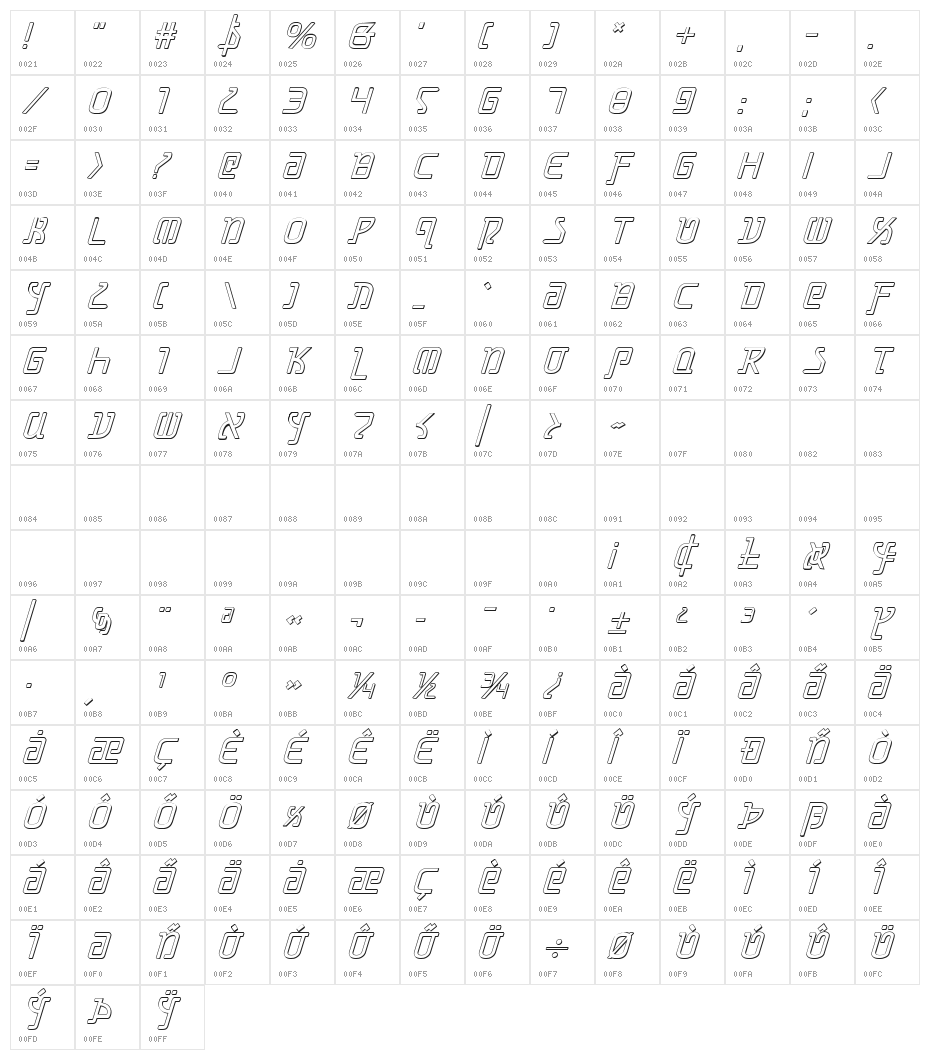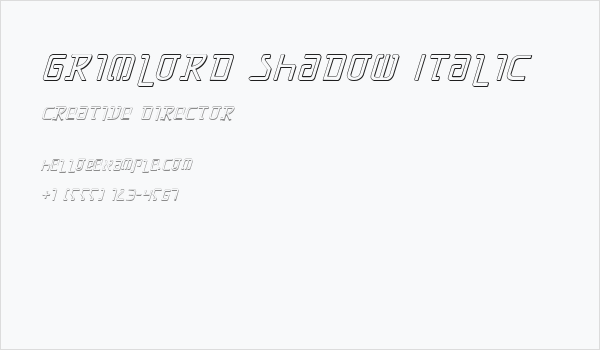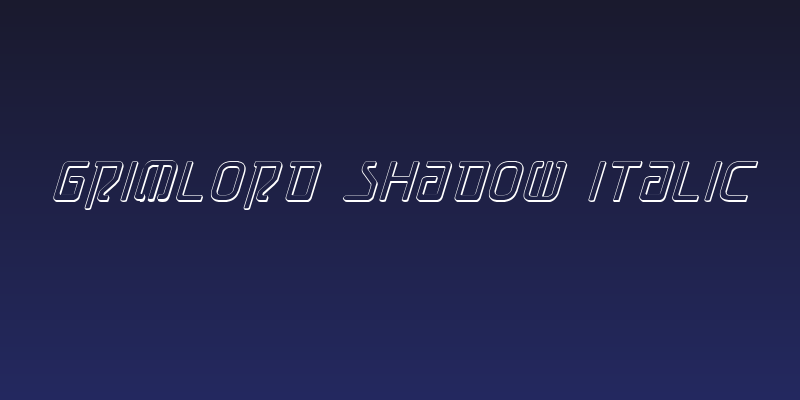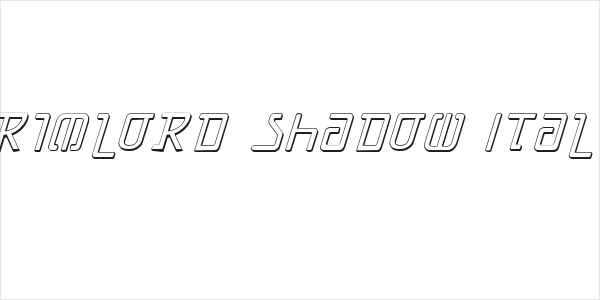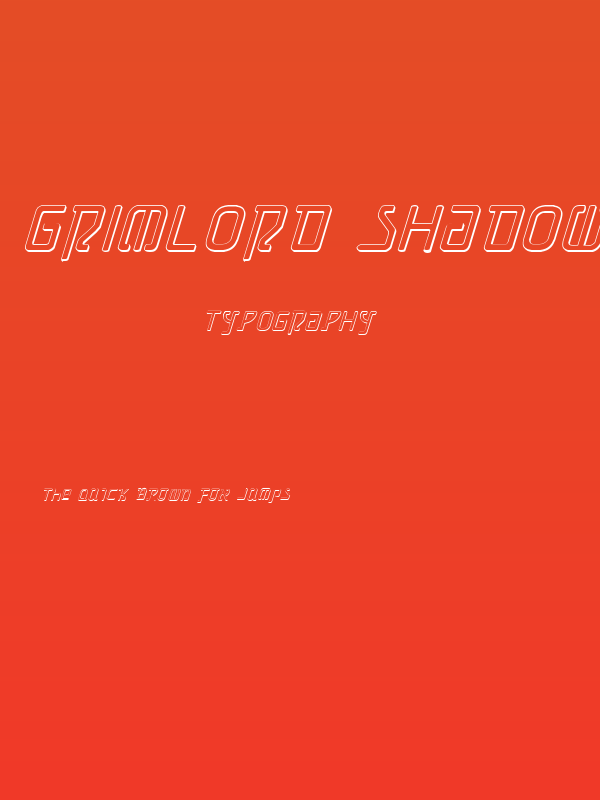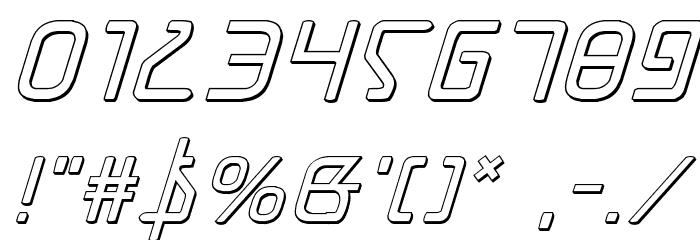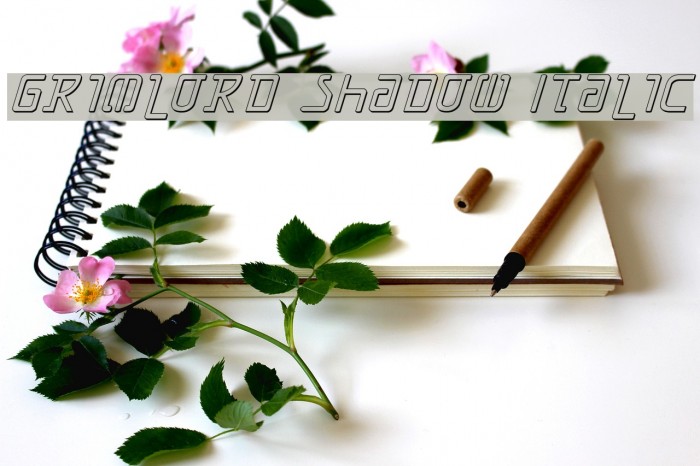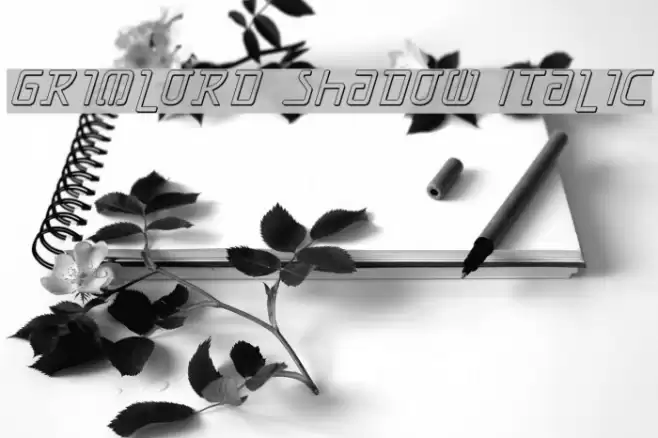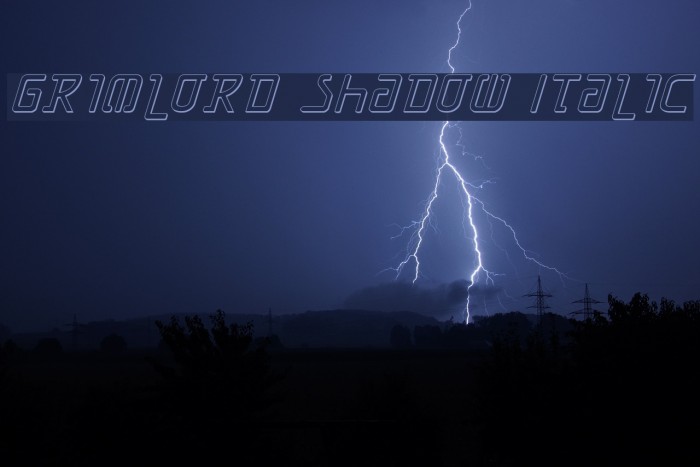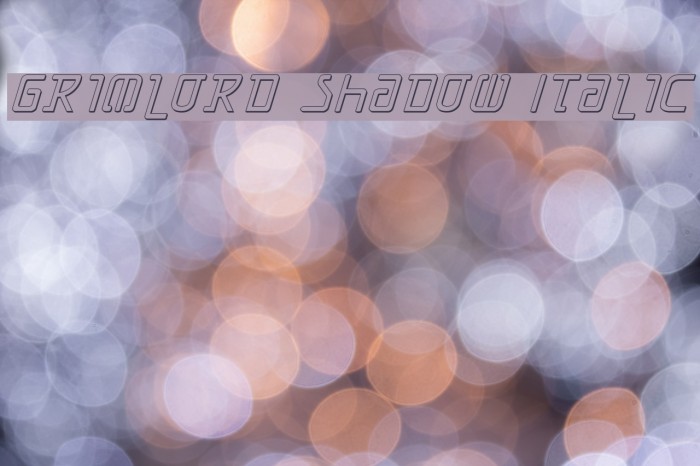
Grimlord Shadow Italic Font
Grimlord Shadow Italic Description
This font features a unique, futuristic design with a shadow effect that gives it a three-dimensional appearance. The characters are italicized, adding a sense of motion and dynamism. Each letter is outlined, creating a hollow effect that enhances its modern and edgy style. The font maintains a consistent width across all characters, contributing to its uniform look. The design is clean and geometric, with sharp angles and straight lines that convey a sense of precision and technology. This font is particularly eye-catching and would stand out in any design project.
| Proposed Projects | Ideal for sci-fi themed projects, tech branding, video game titles, and futuristic posters. |